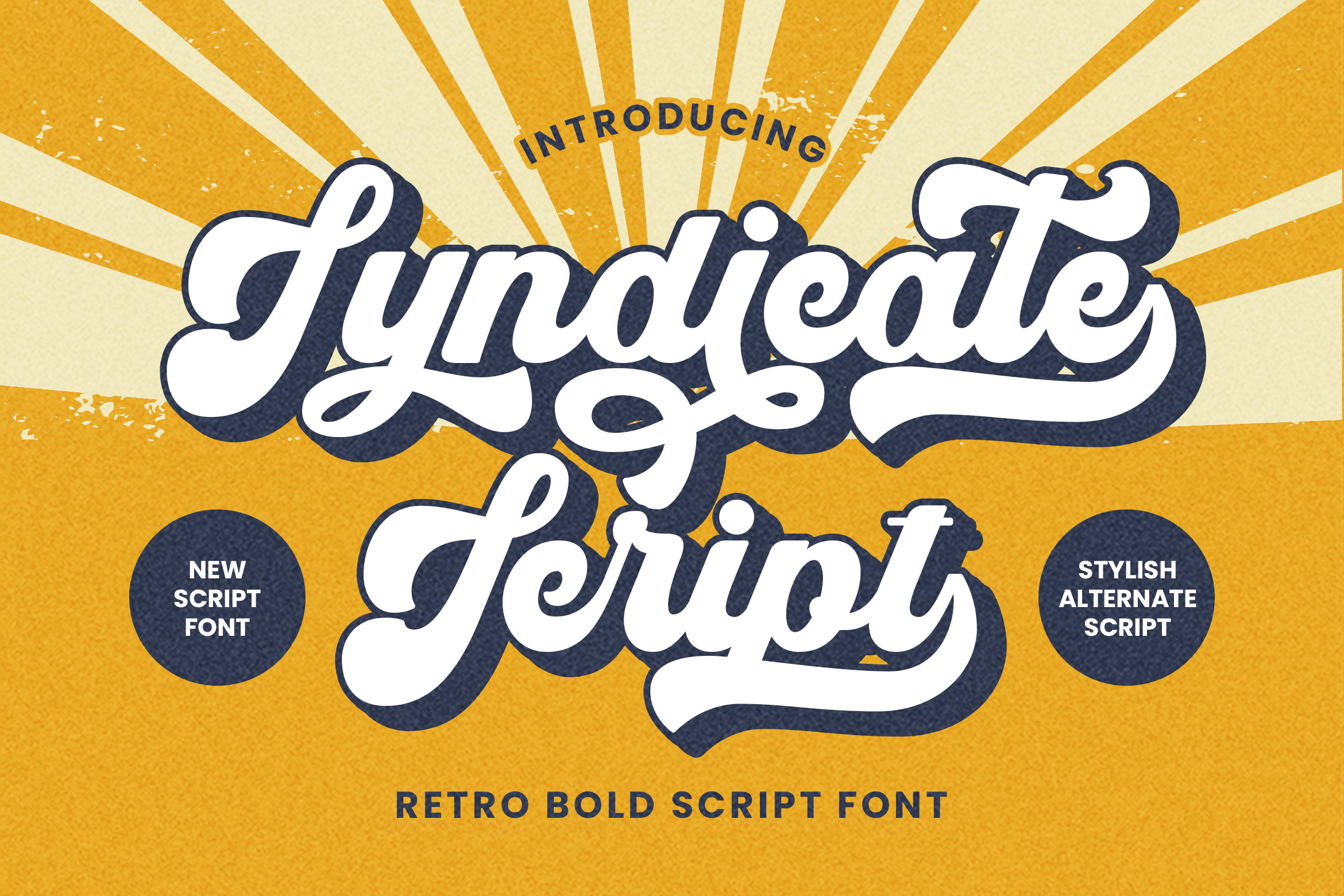
Syndicate - Retro Bold Script Font
Syndicate - Retro Bold Script Font is a font with Retro style characters perfect for branding projects, logos, wedding designs, media posts, advertisements, product packaging, product designs, labels, photography, watermarks, invitations, stationery, and any project who need handwritten dishes.